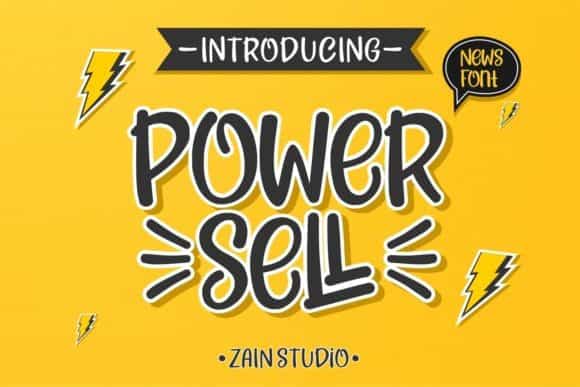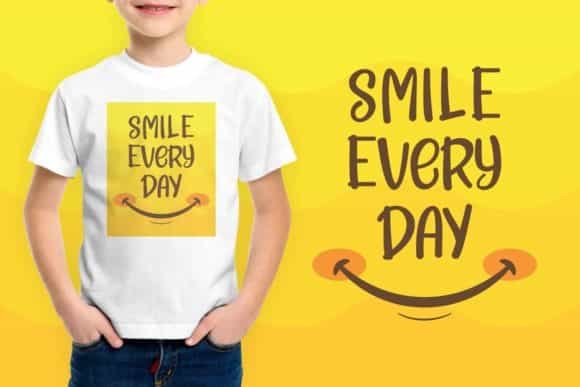
Discover Power Sell Display Font, part of the Commercial Display Comic Cartoon Fancy collection—a versatile and unique font perfect for adding a personal touch to your projects. Download it for free and enjoy crafting designs with style, from invitations to social media posts. This font is available exclusively for personal use, giving you the freedom to create without limits. Unlock your creativity with Power Sell Display Font today!
Power Sell Font is a fun and confident display font that will easily turn any design idea into a star!